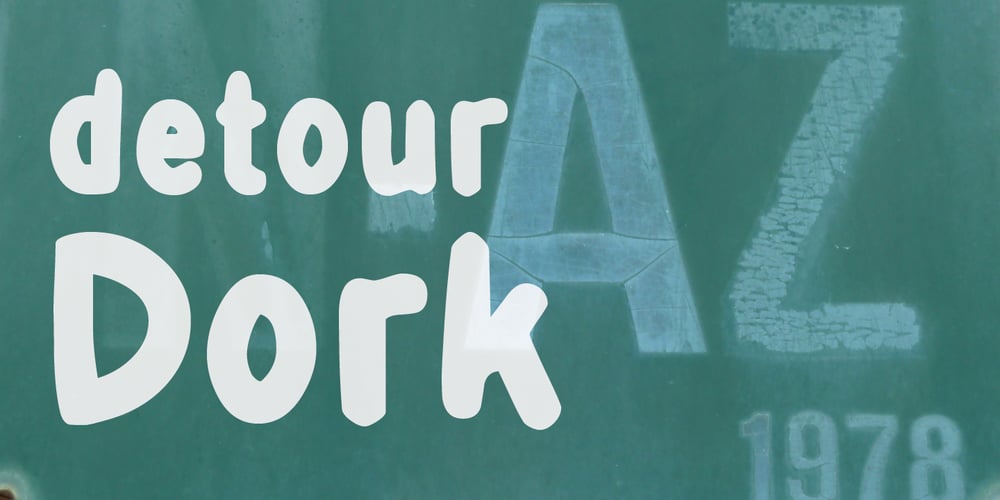
DetourDork Font Family was designed by Jeroen “Joebob” van der Ham and published by JOEBOB graphics. DetourDork contains 1 styles and family package options. DetourDork was inspired by American highway signs. Hand-drawn with a medium marker, but it looks very clean and straight.